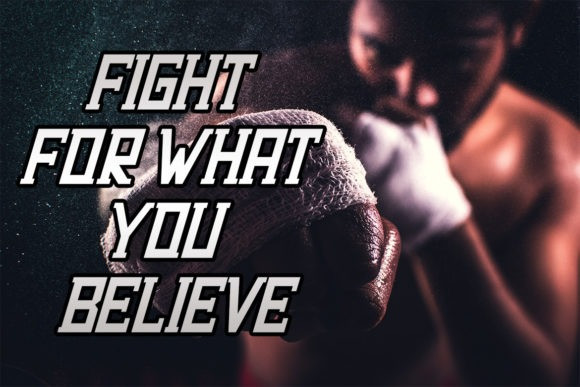
Batsnoda Display Font
Batsnoda Display Font is a modern and bold display font. It can be used for a variety of designs related to speed or sports. Use this font for your designs and explore its endless possibilities.